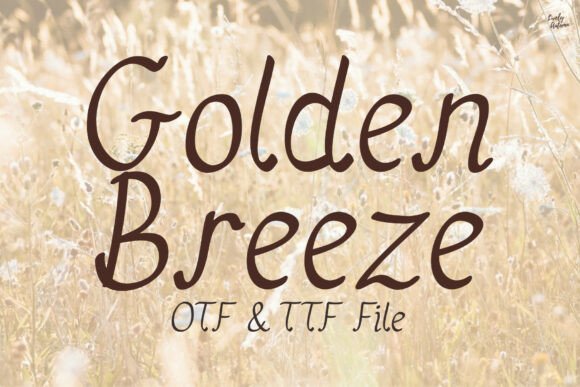
The Perfect Font for a Whimsical Touch
Have you ever found yourself sitting in a serene garden on a warm summer day, surrounded by blooming flowers and the soothing sound of a gentle breeze? That’s exactly the feeling you want to evoke when designing a project that calls for a personal, heartfelt touch. And that’s where the Golden Breeze Font comes in – a soft, handwritten font that captures the essence of a carefree summer day.
This charming font is designed to add a touch of warmth and authenticity to your designs, making it perfect for nature-themed projects, invitations, quotes, packaging, and branding. As a designer, you know how crucial it is to choose the right font to convey your message and evoke the desired emotions in your audience. With the Golden Breeze Font, you’ll be able to create designs that feel genuine and heartfelt, setting your work apart from the rest.
Golden Breeze Font Key Features
- Unique Characteristics: Elegant, cursive script with a touch of classic sophistication, ideal for invitations, wedding stationery, and other formal events
Golden Breeze Font Review
I recently had the chance to work with the Golden Breeze Font, and I have to say, it’s a beautiful addition to any design project. ✨ The font’s elegant and sophisticated feel makes it perfect for luxury brands, high-end products, or anything that needs a touch of class.
One of the things that stands out about Golden Breeze is its versatility. It comes in a range of weights, from light to bold, which allows designers to experiment with different looks and feels. ✨ The font also has a wide range of languages supported, making it a great choice for international projects.
- Elegant and sophisticated feel
- Versatile with a range of weights
- Wide range of languages supported
- Perfect for luxury brands and high-end products
- May not be suitable for casual or playful projects
- Some users may find the font too ornate or busy
- Limited customizability options
Overall, I think the Golden Breeze Font is a solid choice for designers looking to add a touch of elegance to their projects. While it may not be suitable for every project, its versatility and sophisticated feel make it a great option for those who need a high-end font.
The Golden Breeze Font is ideal for creating elegant and sophisticated designs. Use it for:
– Luxury brand logos and packaging
– High-end advertising and marketing materials
Remember to pair the Golden Breeze Font with a clean and simple design to showcase its elegance and sophistication.